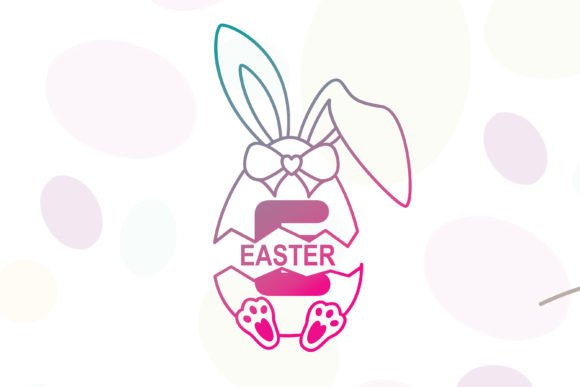
Introducing Easter Rabbit Egg Font, the ultimate choice for all shoe brand enthusiasts and creative minds! This cute and quirky decorative font is designed to bring an incredibly joyful touch to your designs, making them truly stand out from the crowd.
Created by the talented susecreative, Easter Rabbit Egg Font is the perfect companion for those seeking to infuse their artwork with a playful and whimsical vibe. With its unique style and charming aesthetic, this font is guaranteed to capture the hearts of both designers and customers alike.
Imagine the possibilities! With Easter Rabbit Egg Font, you can effortlessly craft stunning stationery art that will leave a lasting impression on anyone who lays eyes on it. Whether you're designing invitations, greeting cards, or personalized notes, this font will add a touch of delight and enchantment to every piece.
But that's not all – the versatility of Easter Rabbit Egg Font knows no bounds. Take your social media game to the next level with eye-catching and attention-grabbing posts that will captivate your audience. From Instagram stories to Facebook covers, this font will make your brand shine brighter than ever before.
What sets Easter Rabbit Egg Font apart is its ability to evoke emotions and create a connection with your audience. Its whimsical curves and playful strokes will transport your customers to a world filled with joy, happiness, and endless possibilities. You'll be amazed at how effortlessly this font ignites a sense of wonder and excitement in anyone who sees it.
In conclusion, Easter Rabbit Egg Font is the best font for shoe brands looking to make a statement. Its decorative nature, combined with its ability to evoke emotions, will ensure that your designs leave a lasting impact. Whether you're creating stationery art or captivating social media posts, this font will elevate your brand and attract customers like bees to honey. Don't wait any longer – unlock the magic of Easter Rabbit Egg Font and let your creativity soar!